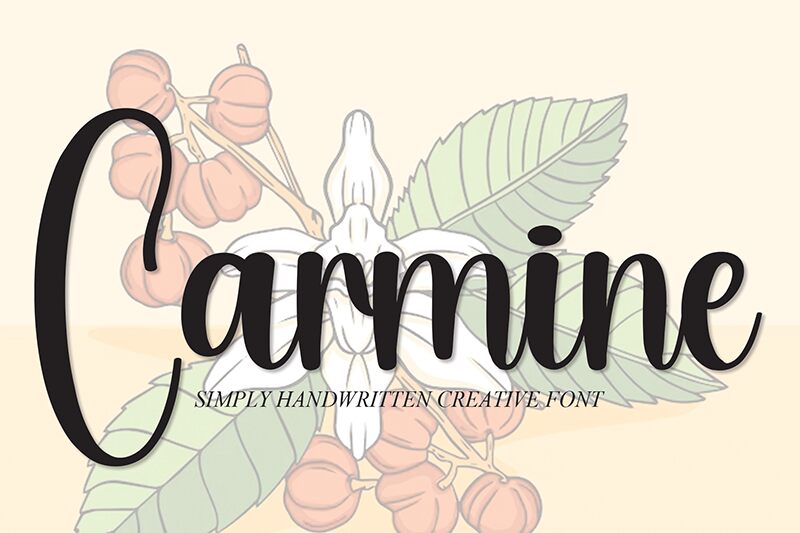
Carmine
Carmine font is a handwritten creation by the talented designer Andi Moz. Casual elegance and an expressive style are presented in a condensed font with smooth flowing lines and particular feminine vibes. It has a congenial appeal notable across all its characters where modernity prevails at the expense of tradition – an ideal choice for designers looking to tap into young audiences.